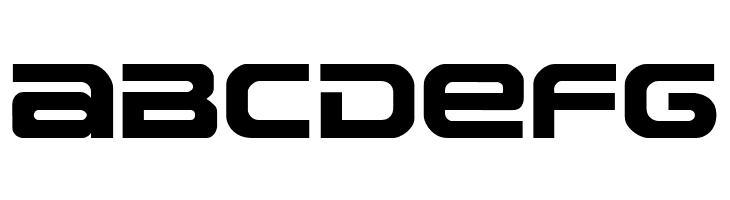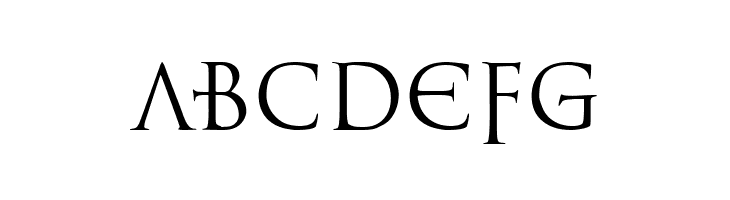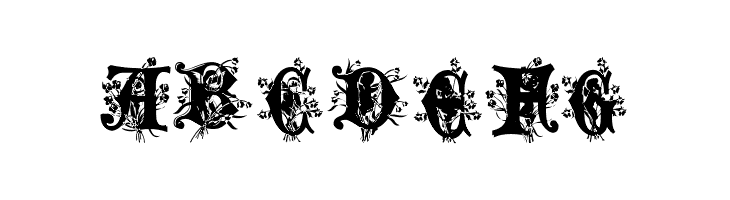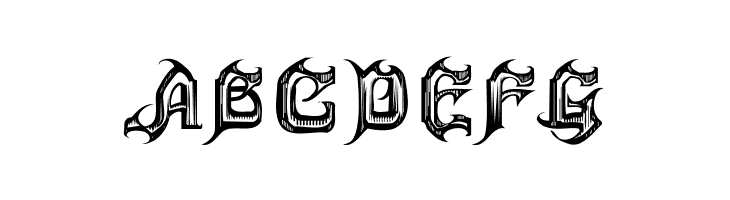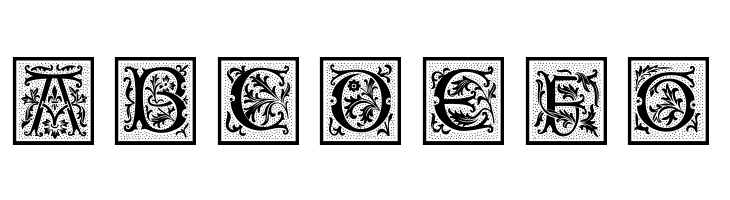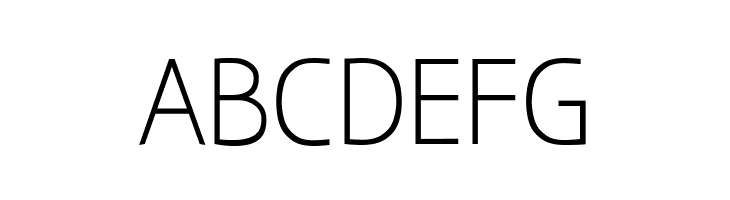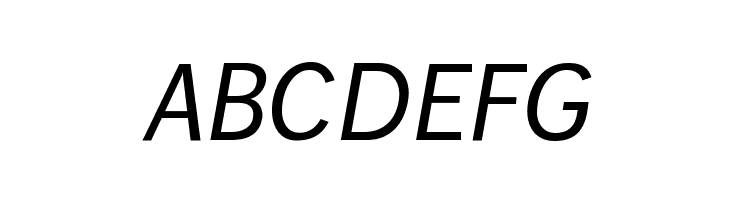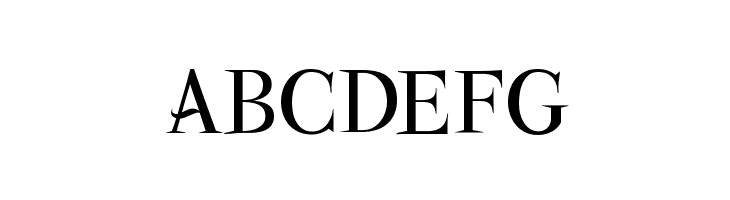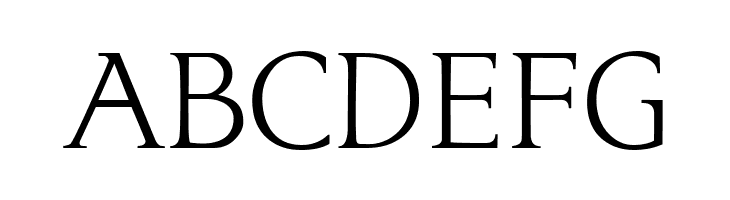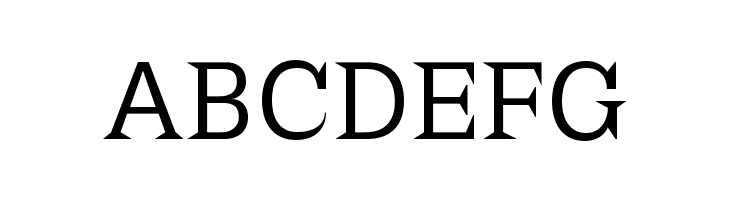
A futuristic, geometric font with bold, angular letterforms.
A modern gothic font with sharp serifs and elongated strokes, exuding elegance and mystery.
A decorative font inspired by traditional Gaelic script with bold, angular forms.
A gothic, medieval-inspired font with ornate, high-contrast letterforms.
An ornate, decorative font with floral embellishments in square frames.
A modern, sans-serif font with clean lines and excellent readability.
A modern, italic sans-serif font with clean lines and a dynamic appearance.
A classic serif font with elegant strokes and balanced proportions.
A classic serif typeface with high contrast and elegant serifs.
A classic serif typeface with balanced strokes and moderate contrast.
A bold, handwritten font with a casual and energetic style.
A playful, bold handwritten font with rounded, consistent strokes.
A playful, handwritten font with bold strokes and an informal style.